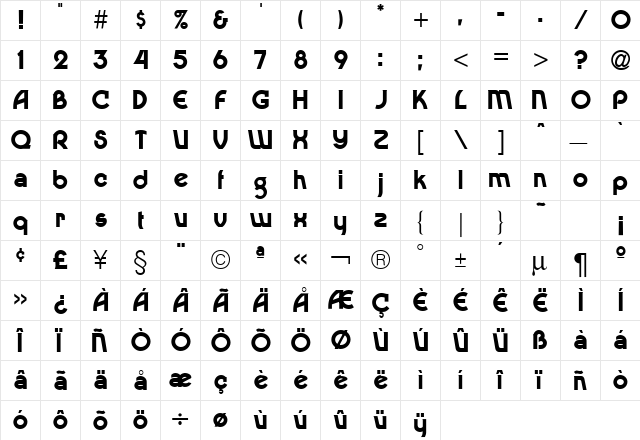
DingalingMedium Regular
Design Context for DingalingMedium Typeface
DingalingMedium is a composed and adaptable typeface that performs quietly and consistently across a wide range of design contexts.